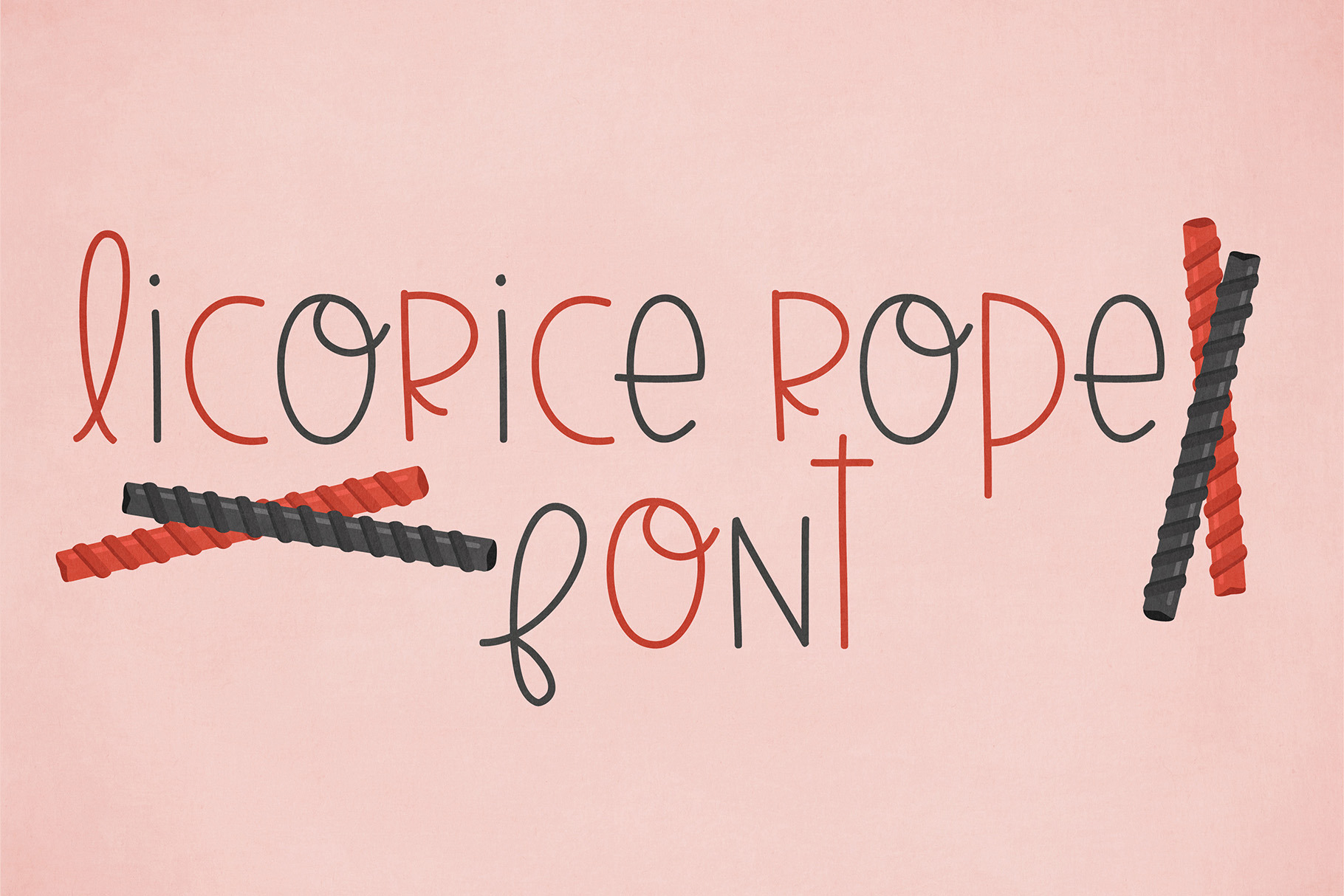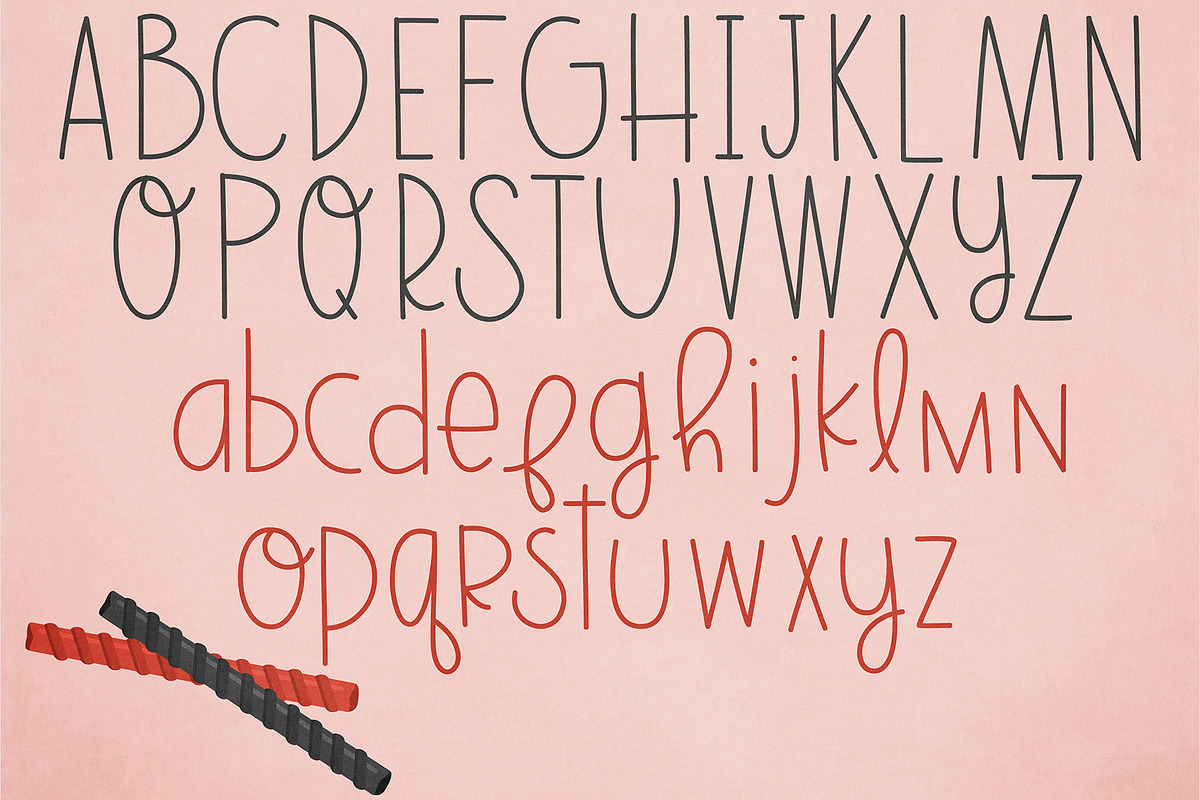
Licorice Rope Font
Introducing a cute handwritten font Licorice Rope!
Perfect for greeting cards, branding, stationery, social media, scrapbooking, prints and more!